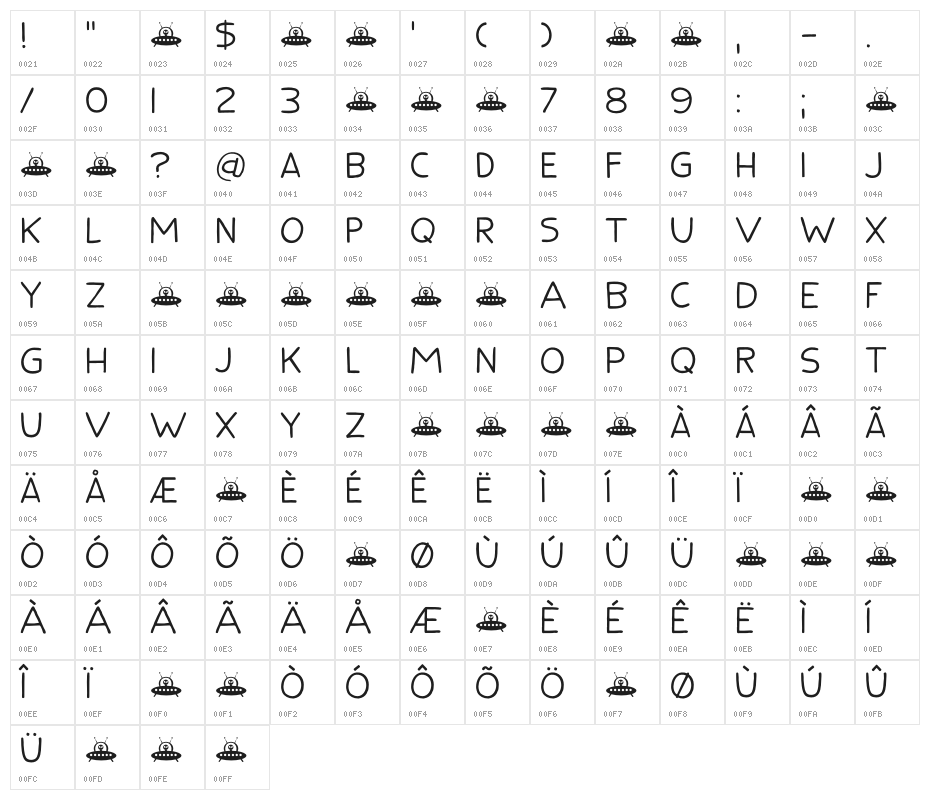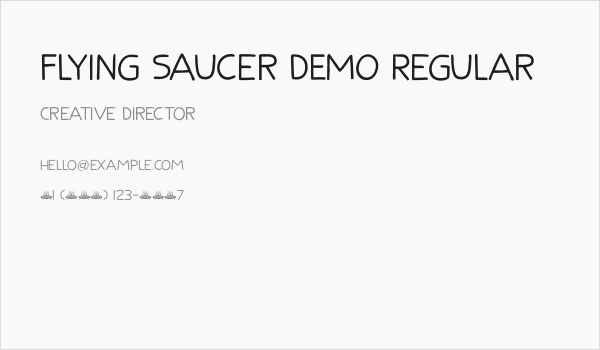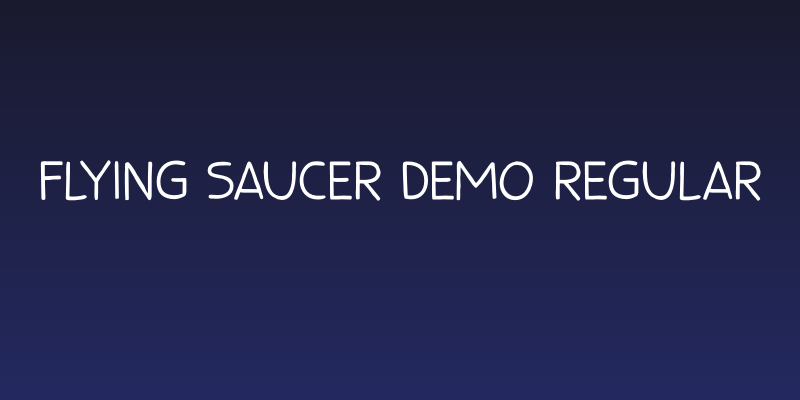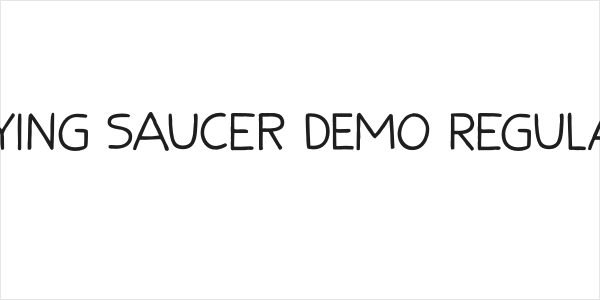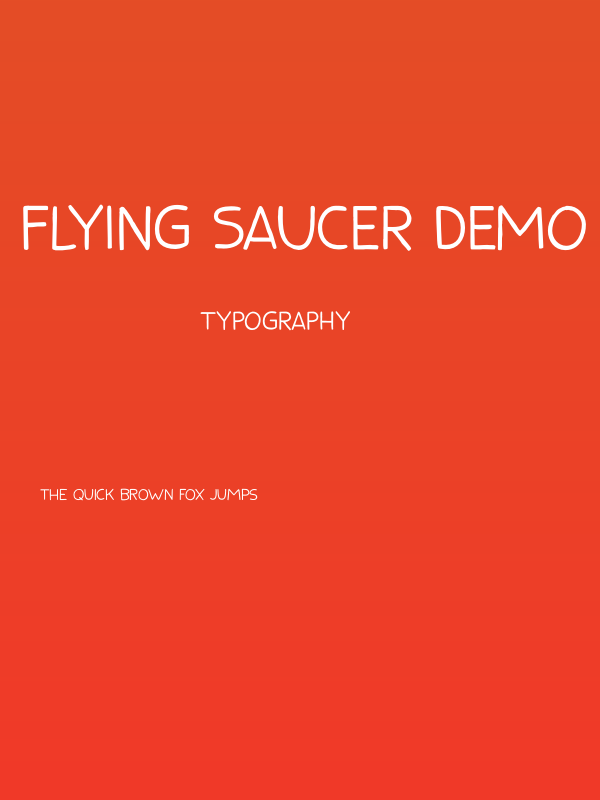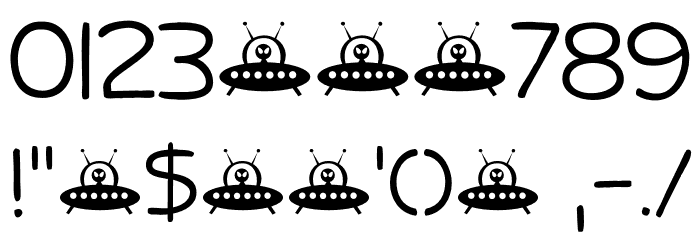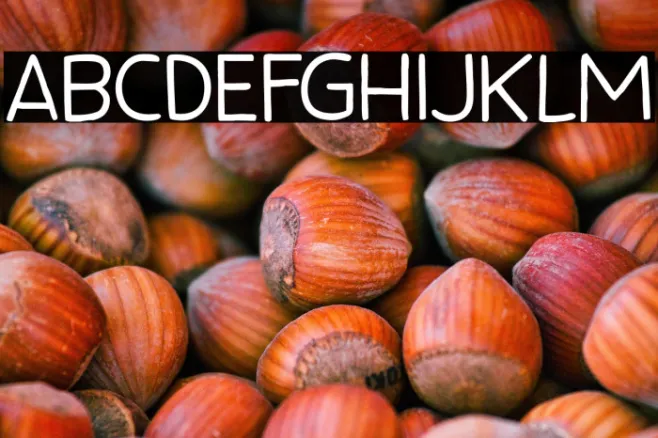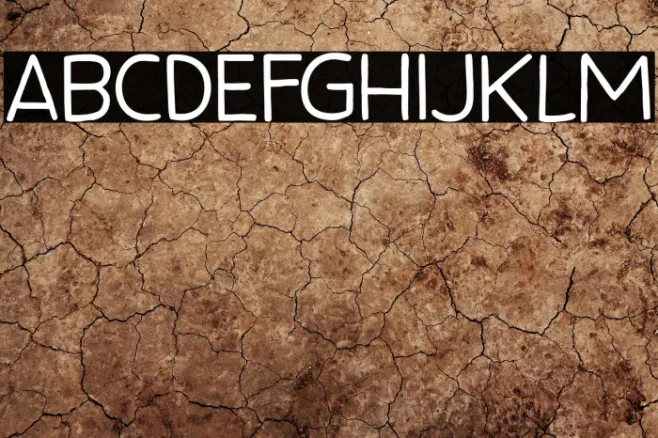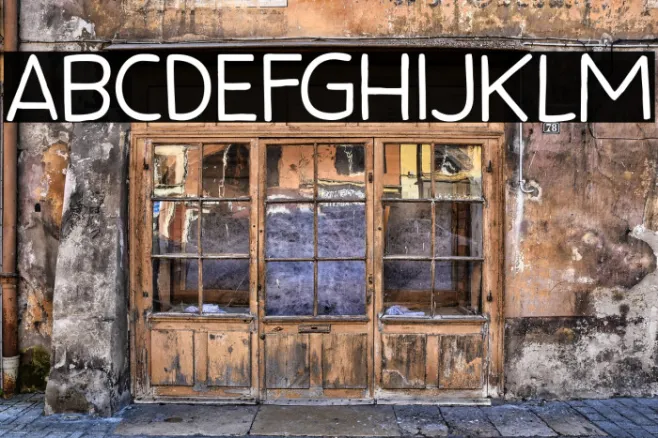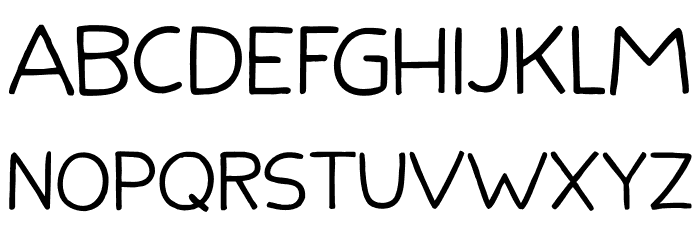
Flying Saucer DEMO Regular Font
Flying Saucer DEMO Regular Description
This playful and whimsical font features a unique design with rounded, slightly irregular letterforms that give it a hand-drawn appearance. The uppercase and lowercase letters maintain a consistent style, with a friendly and approachable look. The numbers and special characters are creatively integrated with alien-themed motifs, adding a fun and imaginative touch. The font's overall style is casual and light-hearted, making it suitable for projects that require a touch of humor or creativity.
| Proposed Projects | Ideal for children's books, playful branding, sci-fi themed events, and creative posters. |